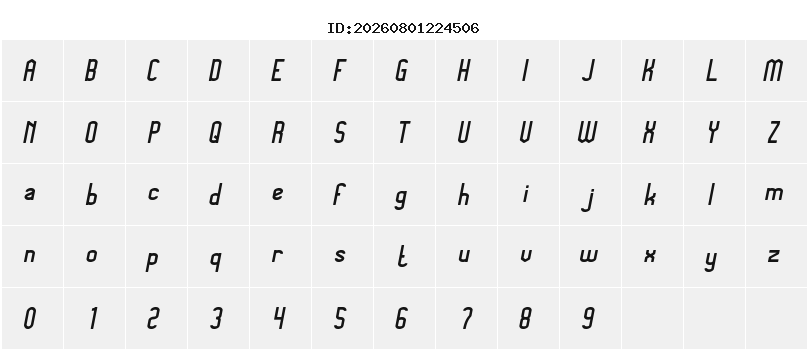
• Font Name: Megapolitan Jakarta
• Font Style: Gras Italique
• Full Font Name: Megapolitan Jakarta Bold Italic
• Version: Version 1.00 November 29, 2016, initial release
About Megapolitan Jakarta.ttf
Megapolitan Jakarta.ttf is a modern, elegant sans-serif font designed for ultimate readability and visual harmony. Perfect for branding, headlines, web design, and print materials.